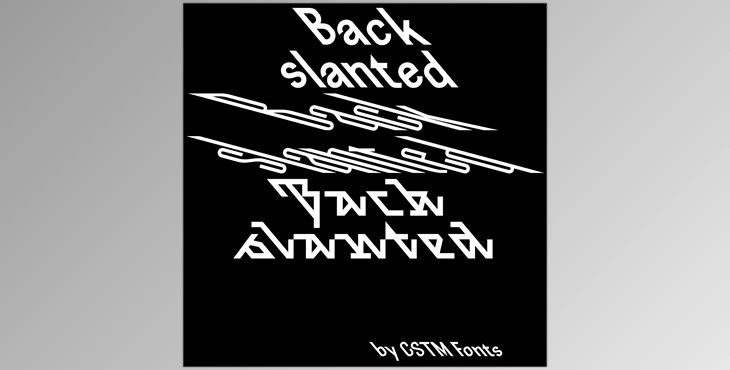
Backslanted Font Family: Backslanted isn't a typeface family. However, it is a series of fonts that include types back slanted, with different styles, weights, and angles. The collection uses minimal optical compensators to explore back-slanted shapes defined with their drawing instruments (a driver and ruler).
The first installment of the back-slanted series includes Two sans serif fonts (Regular and Super back-slanted) and the Script. The three fonts are all fitted with punctuation marks, currency, math symbols, and a variety of stylistic options.
The collection will complement other styles, such as Serifs, Blackletters, and probably other typefaces created using the same techniques.